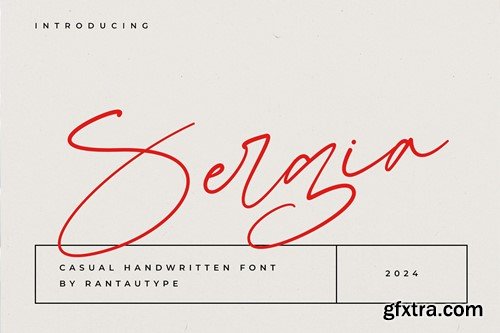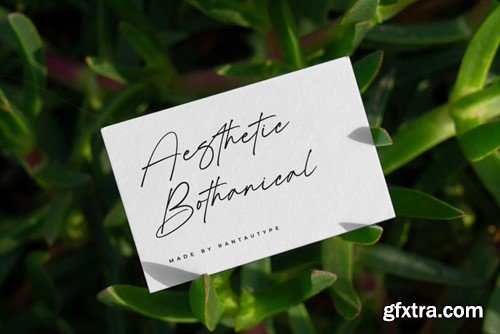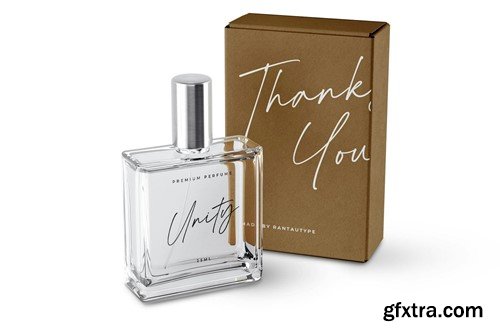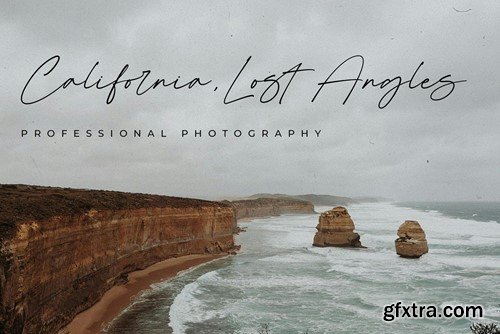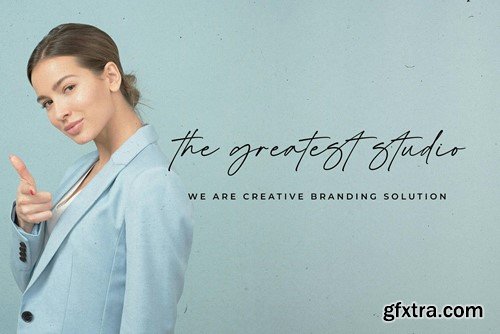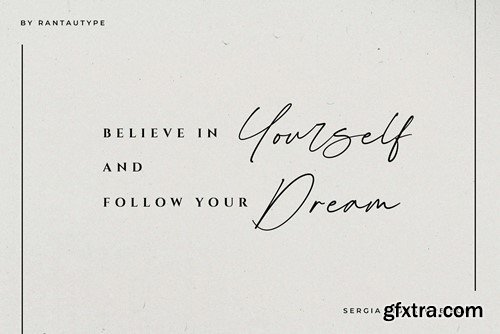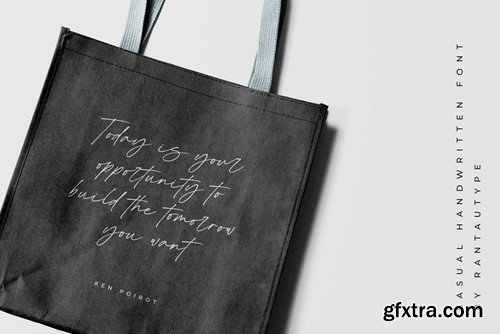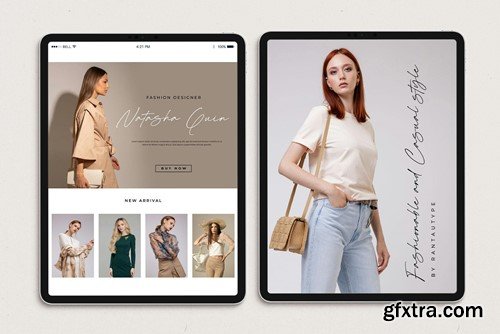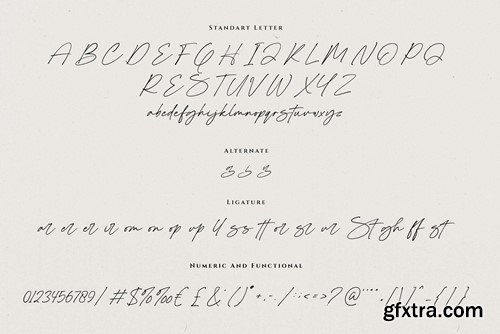
Sergia Casual Handwritten Font FMNC9AZ
Sergia - a new modern and fresh script with casual handwritten look. Experience elegancy in a visual form for your design with sergia font, inspired by elegant brand and stylish concept targeting a with lux curves to make it elegant and natural. come with alternate, ligature and already support multilingual character. Sergia is a perfect choice for any creative endeavor, chic, lifestyle design such as logos, title, watermark on photography, cover, branding, display and magazine, wedding event, corporate brand, quotes, album cover, business card, business project and many other design project. Features: What includes: Multilinggual support for: Afrikaans, Albanian, Asu, Basque, Bemba, Bena, Breton, Chiga, Cornish, Dutch, English, Estonian, Filipino, Finnish, Friulian, Galician, Gusii, Indonesian, Irish, Italian, Kabuverdianu, Kalenjin, Kinyarwanda, Luo, Luxembourgish, Luyia, Machame, Makhuwa-Meetto, Makonde, Malagasy, Manx, Morisyen, North, Ndebele, Nyankole, Oromo, Portuguese, Quechua, Romansh, Rombo, Rundi, Rwa, Samburu, Sango, Sangu, Scottish, Gaelic, Sena, Shambala, Shona, Soga, Somali, Spanish, Swahili, Swedish, Swiss, German, Taita, TesoUzbek (Latin), Volapük, Vunjo, Zulu Thank you for visit our store and Hope you enjoy our font!!